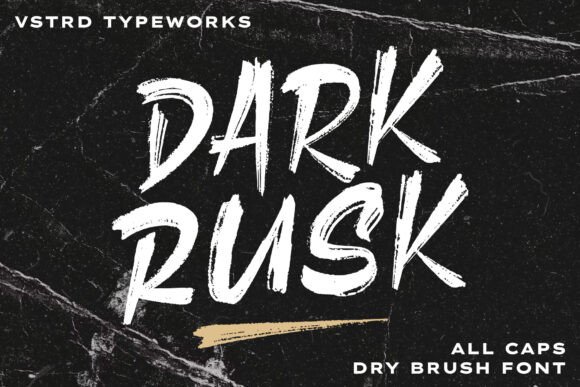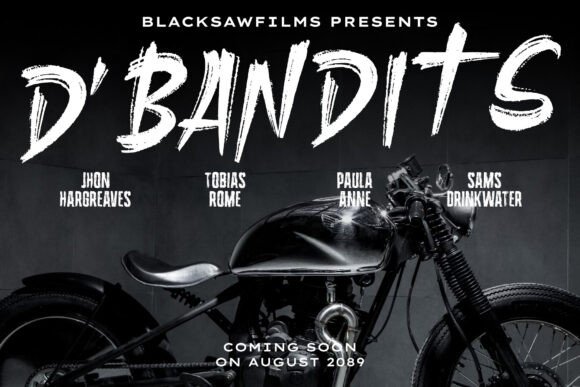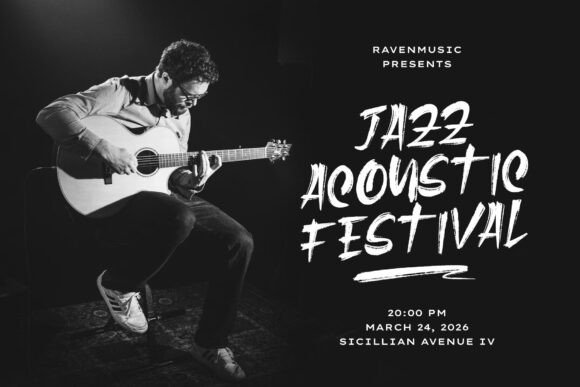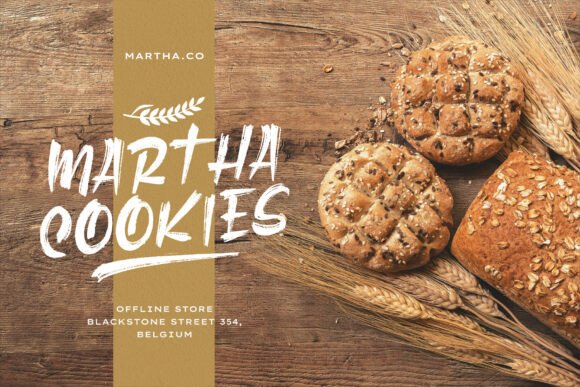
Dark Rusk Font: Bold Brush Typography for Eye-Catching Posters
About the Dark Rusk Font
Meet Dark Rusk Font, a stunning font that brings a touch of elegance and professionalism to any design. Bring energy and attitude to your designs with Dark Rusk, a powerful dry brush font crafted from natural, hand brush strokes. With its raw, expressive strokes and dynamic texture, this font is perfect for projects that demand a bold, rebellious edge.
Ideal for logos, food & beverage branding, promotional campaigns, video titles, product packaging, quotes, posters, flyers, t-shirts, and eye-catching text overlays, Dark Rusk adds a handcrafted, urban feel to any design.
Dark Rusk’s bold, rebellious character makes it ideal for headlines, short impactful phrases, and branding projects requiring a strong, edgy aesthetic. It excels in large sizes where its texture and brush strokes are prominent, adding visual interest to posters, packaging, and logos for brands targeting a younger, more alternative demographic. Avoid using it for body text or lengthy paragraphs; its texture can be visually overwhelming and hinder readability in smaller sizes.
Pairing Dark Rusk with a clean sans-serif like Montserrat or a geometric sans-serif like Futura creates a striking contrast, balancing its raw energy with a sense of modern sophistication. For a softer feel, consider pairing it with a slightly rounded sans-serif font. A simple serif like Garamond or a delicate script font can provide an interesting counterpoint, enhancing its hand-crafted feel without competing for attention.
Its raw, expressive nature makes Dark Rusk unsuitable for projects requiring high readability or a polished, corporate feel. Applications like user interfaces or formal documents would be better served by more refined typefaces.
Dark Rusk Font Usage Examples
Dark Rusk Font Example